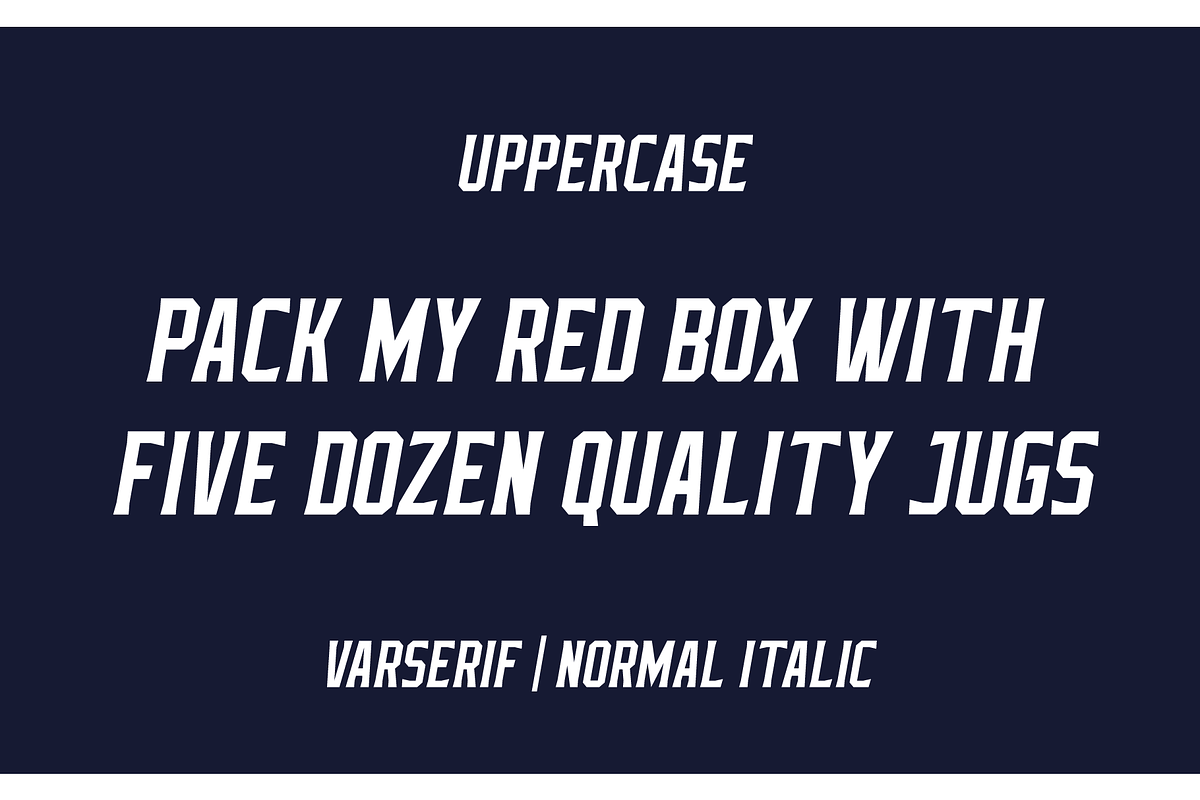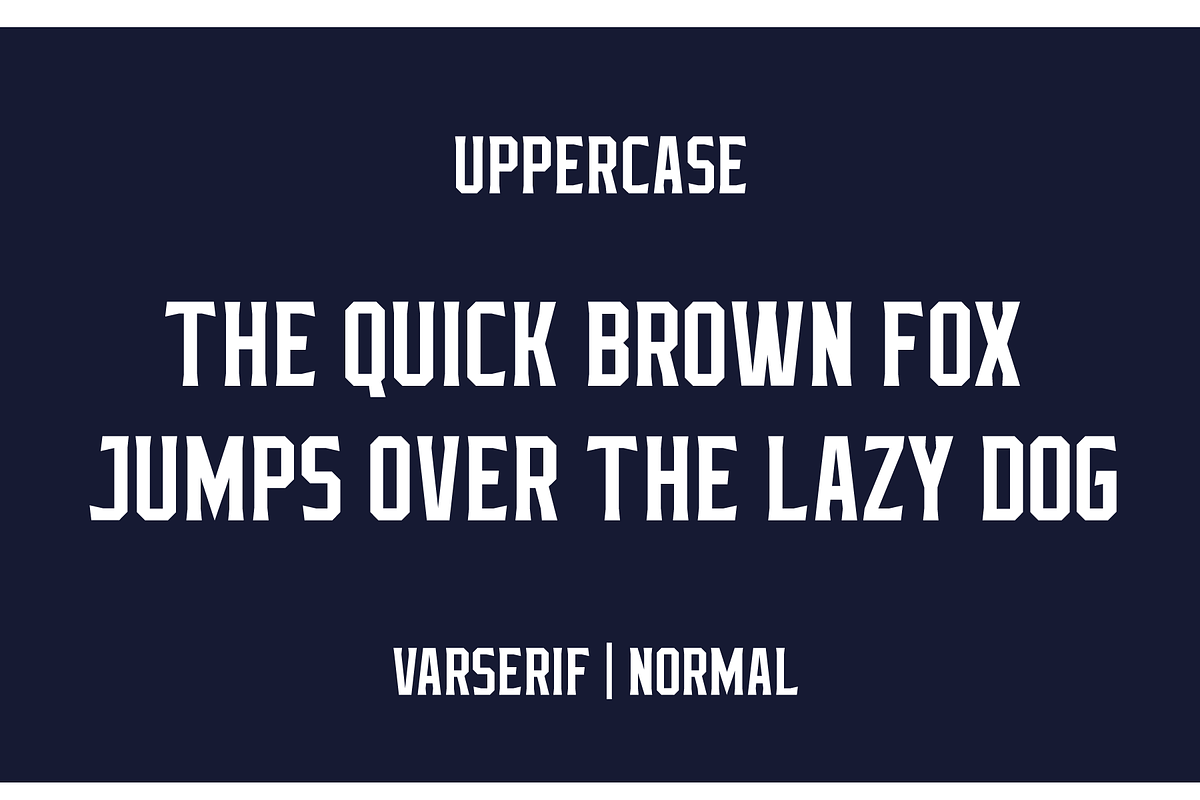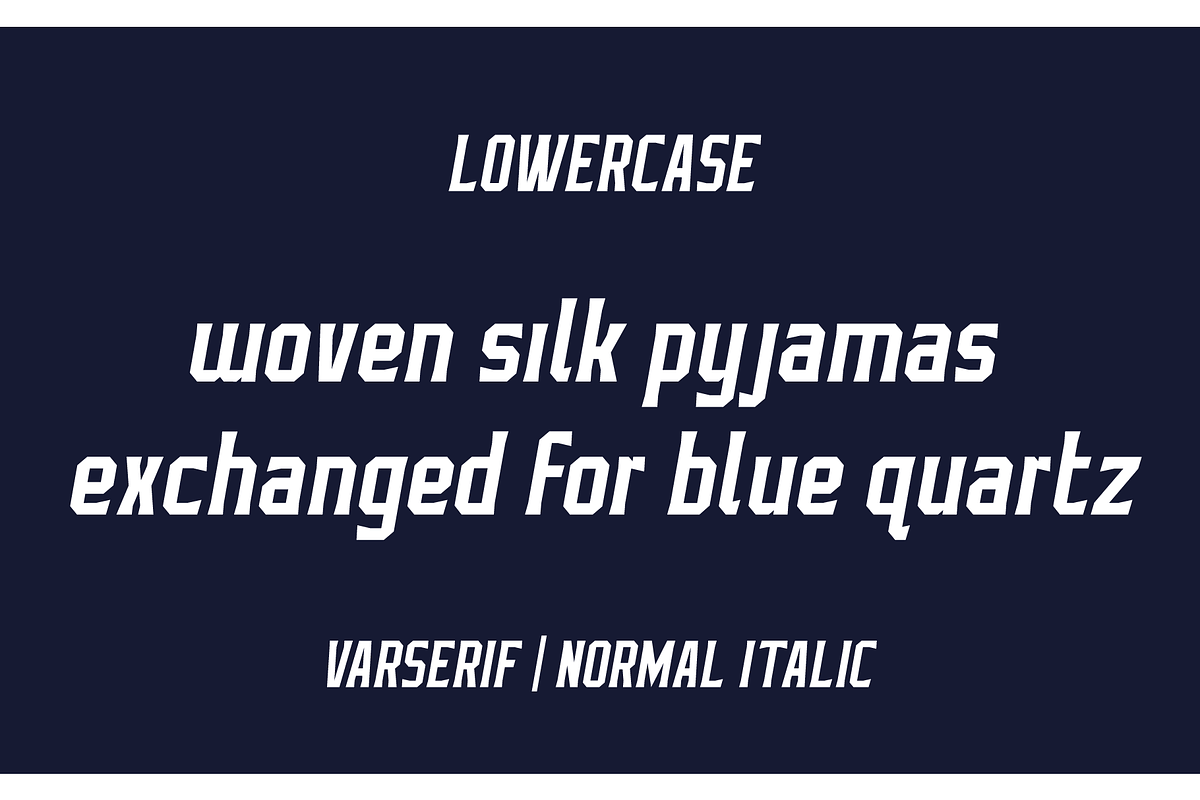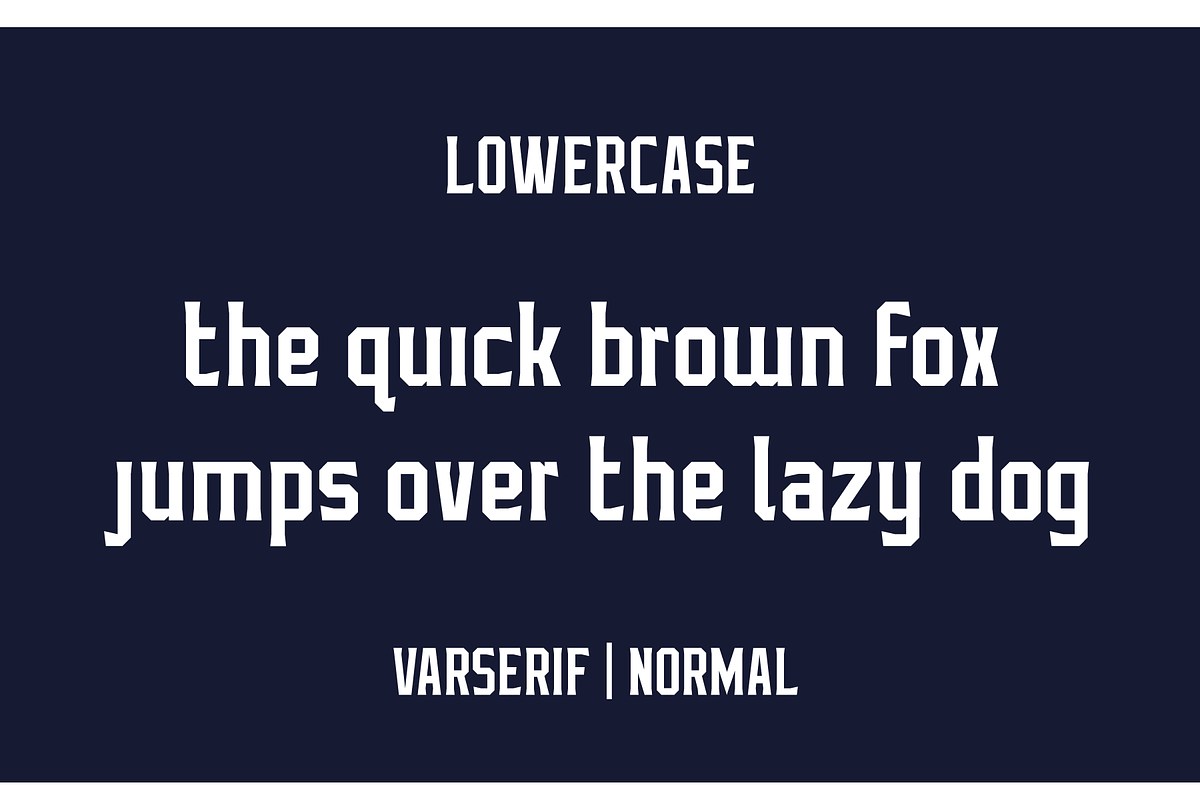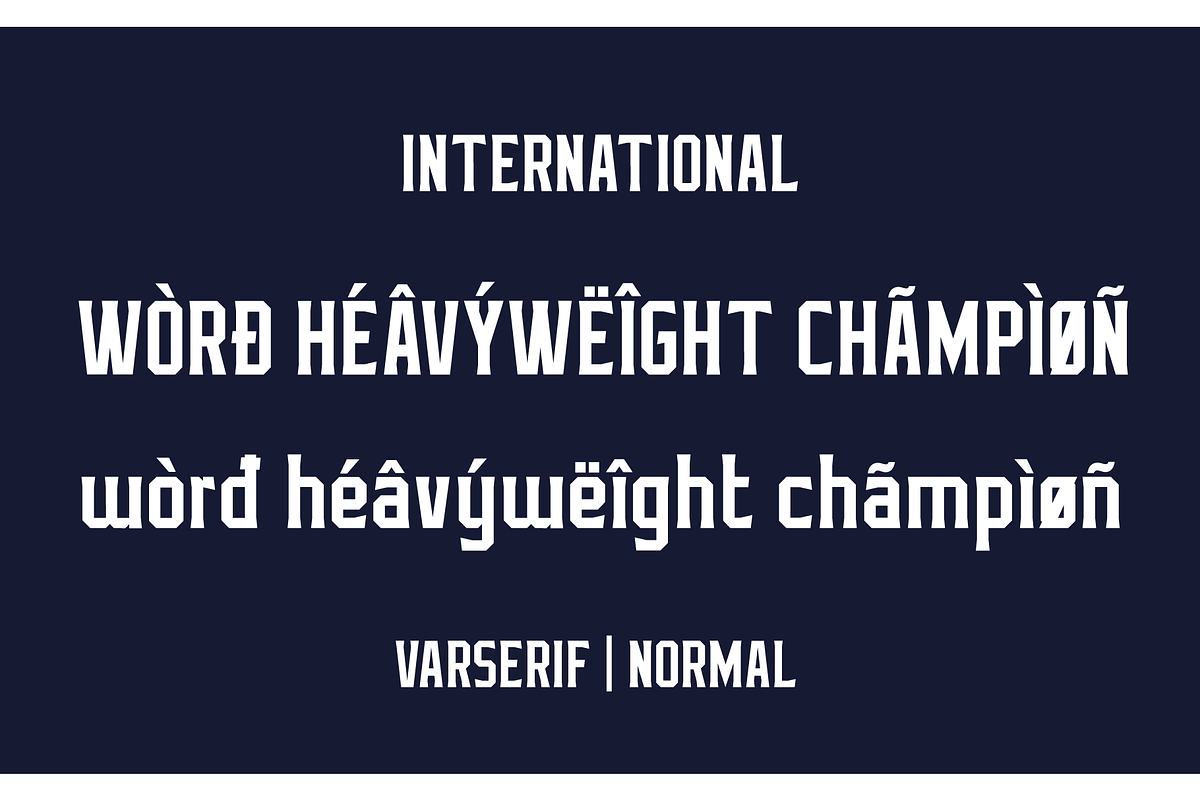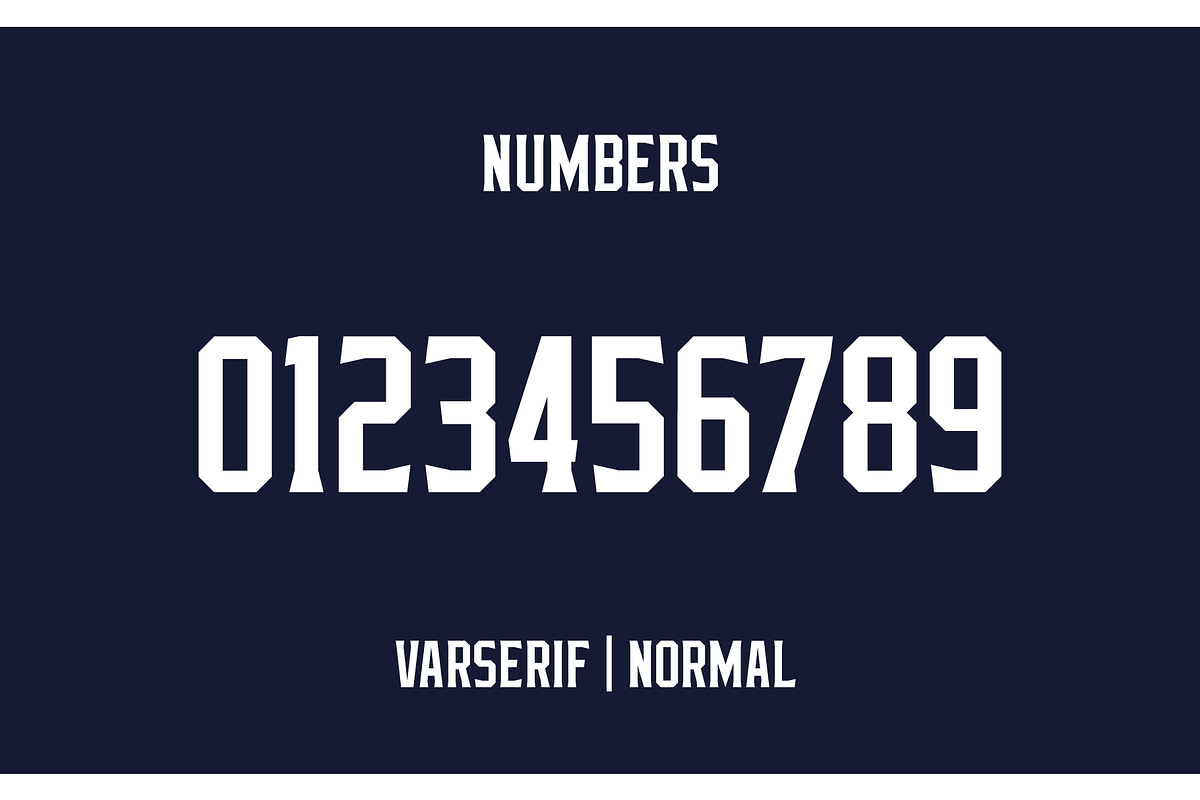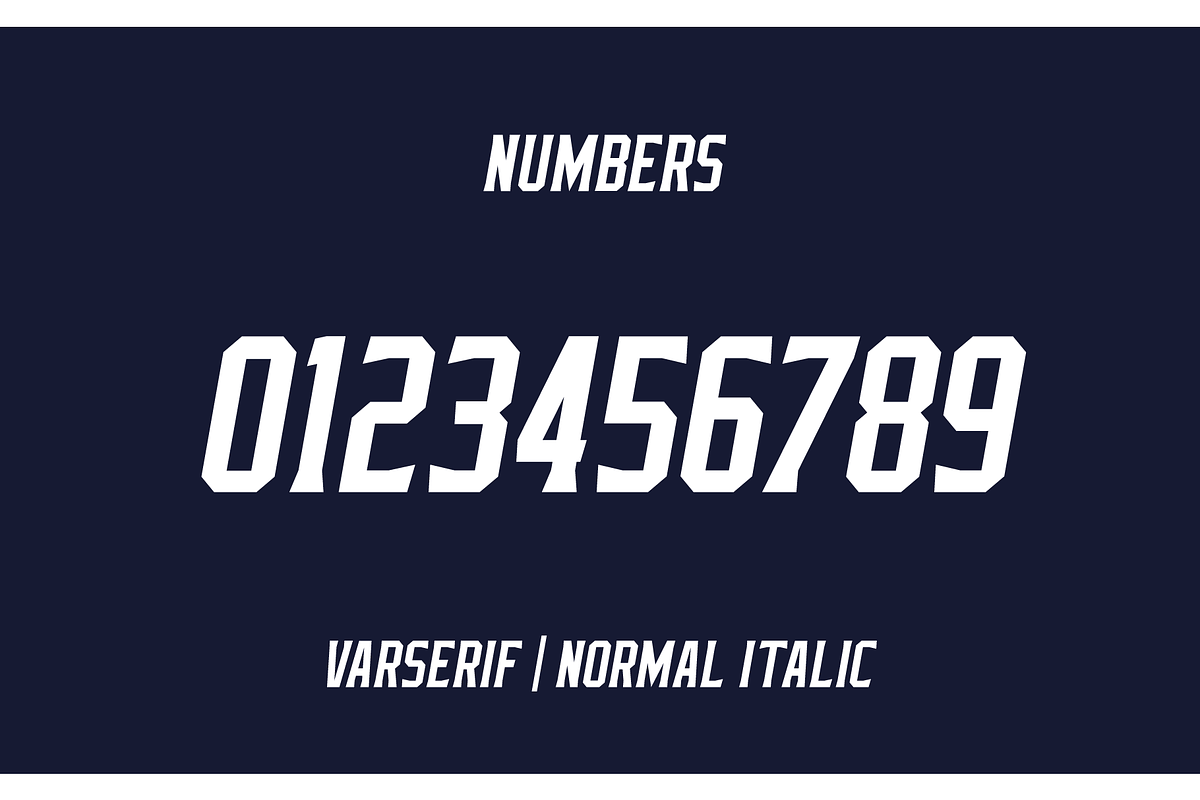
Varserif Font Family
Varserif Font Family is a serif family that includes four styles; light, light italic, normal and normal italic. Each font includes uppercase, lowercase, numbers, punctuation and Latin international characters.
Why Varserif Font Family is worth a look
Varserif Font Family by Alphabet Agency fits naturally into Branding, posters, packaging, typography.